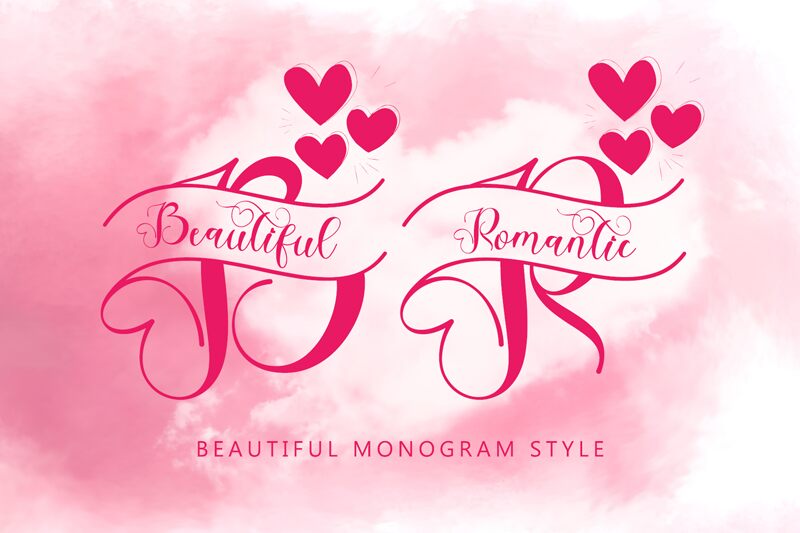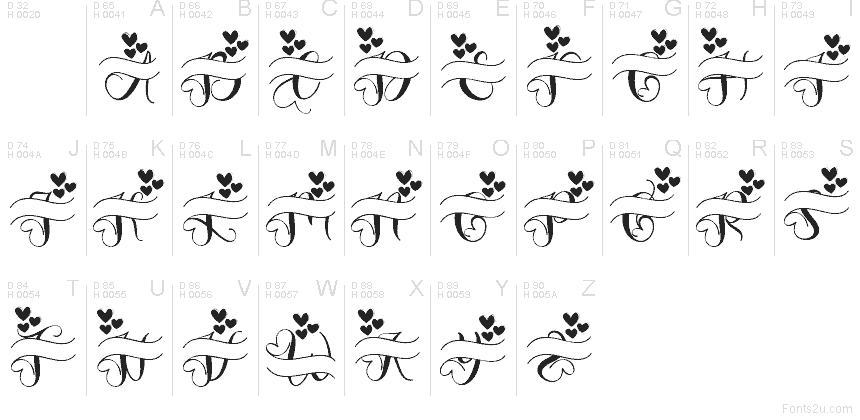
Romantic Monogram Style
Romantic Monogram Style font by Yoga Letter is a free holiday calligraphy typeface that turns every letter into a little love token. Flowing, ribbon-like strokes curl gracefully into loops, while clusters of plump hearts float above the line like confetti. The Romantic family’s swirling forms feel hand-drawn and intimate, giving your designs that “ink on paper” warmth instead of a flat, digital look.
Using Romantic Monogram Style font, you can instantly dress up Valentine’s cards, wedding invitations, bridal shower signage, gift tags, and romantic logos. Those built‑in flourishes and heart motifs also work beautifully as borders or dividers on menus and save‑the‑date postcards. For a balanced layout, pair this free font with a clean, simple sans serif for body copy and keep Romantic Monogram Style large so its delicate curls and hearts stay crisp and legible.